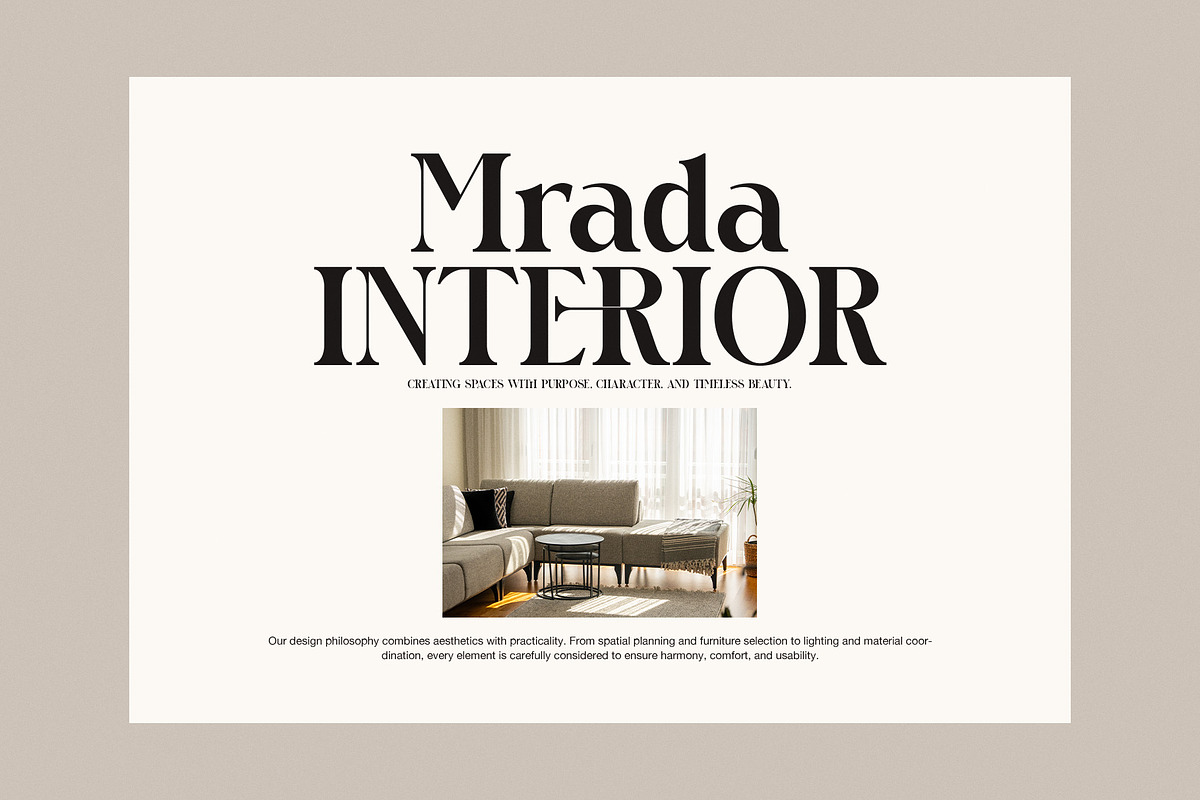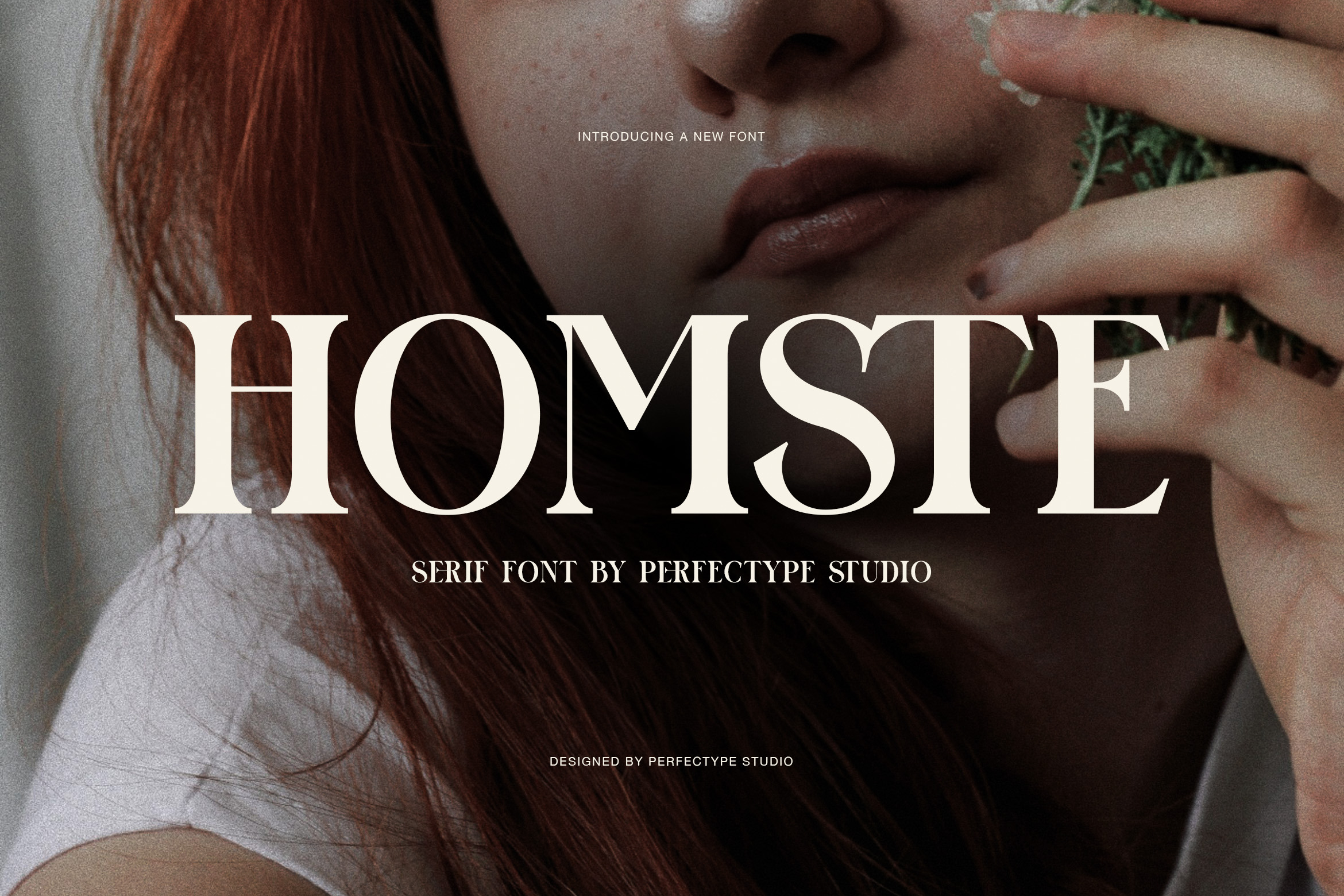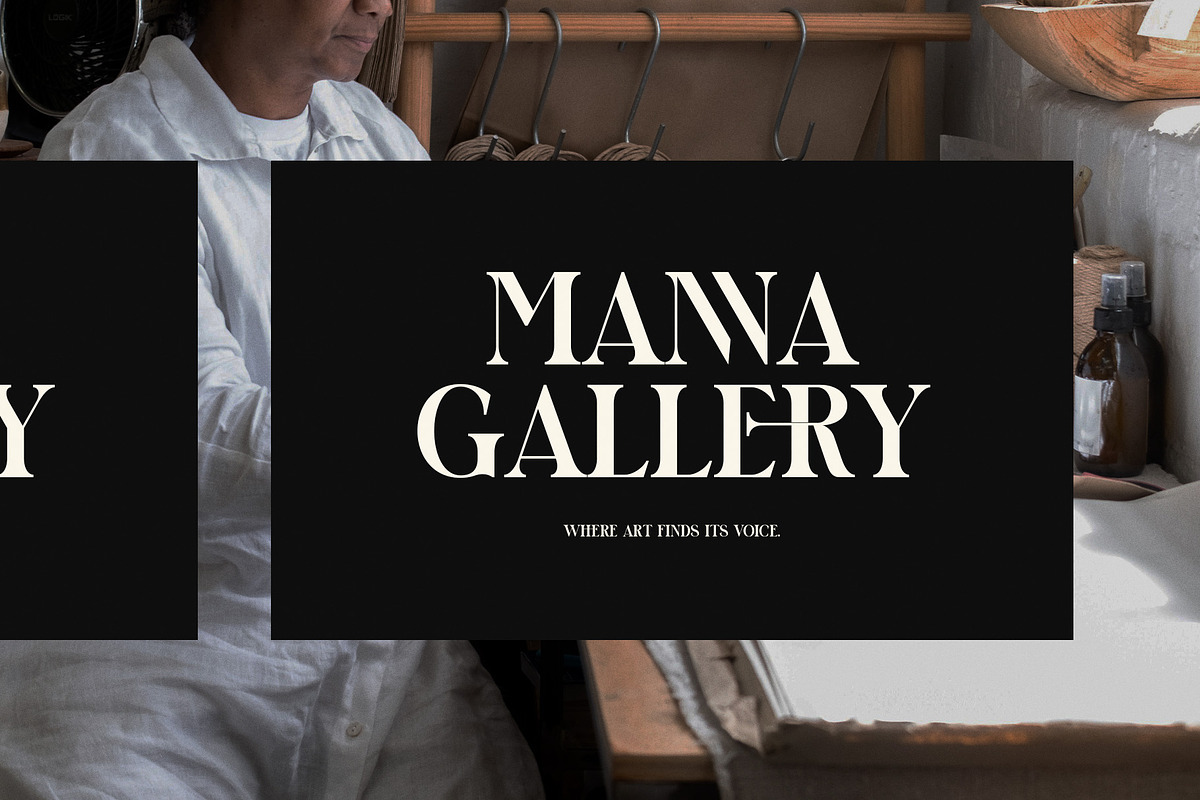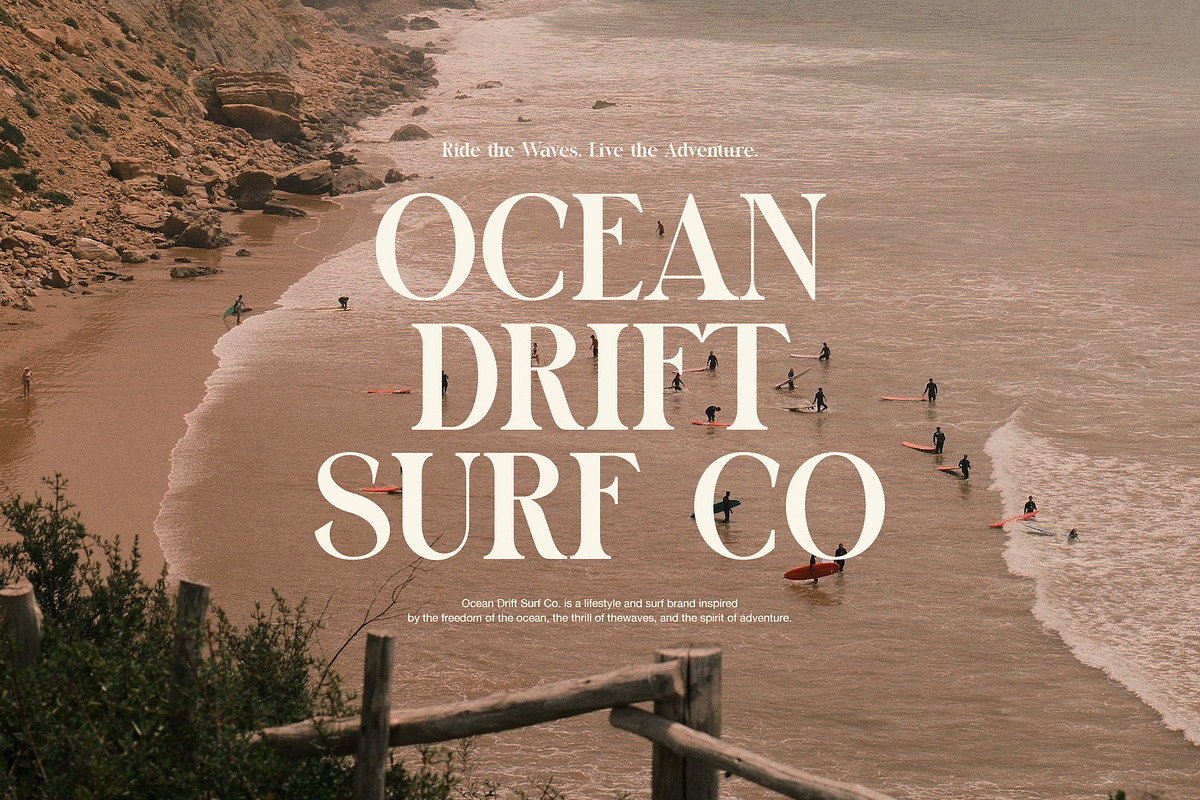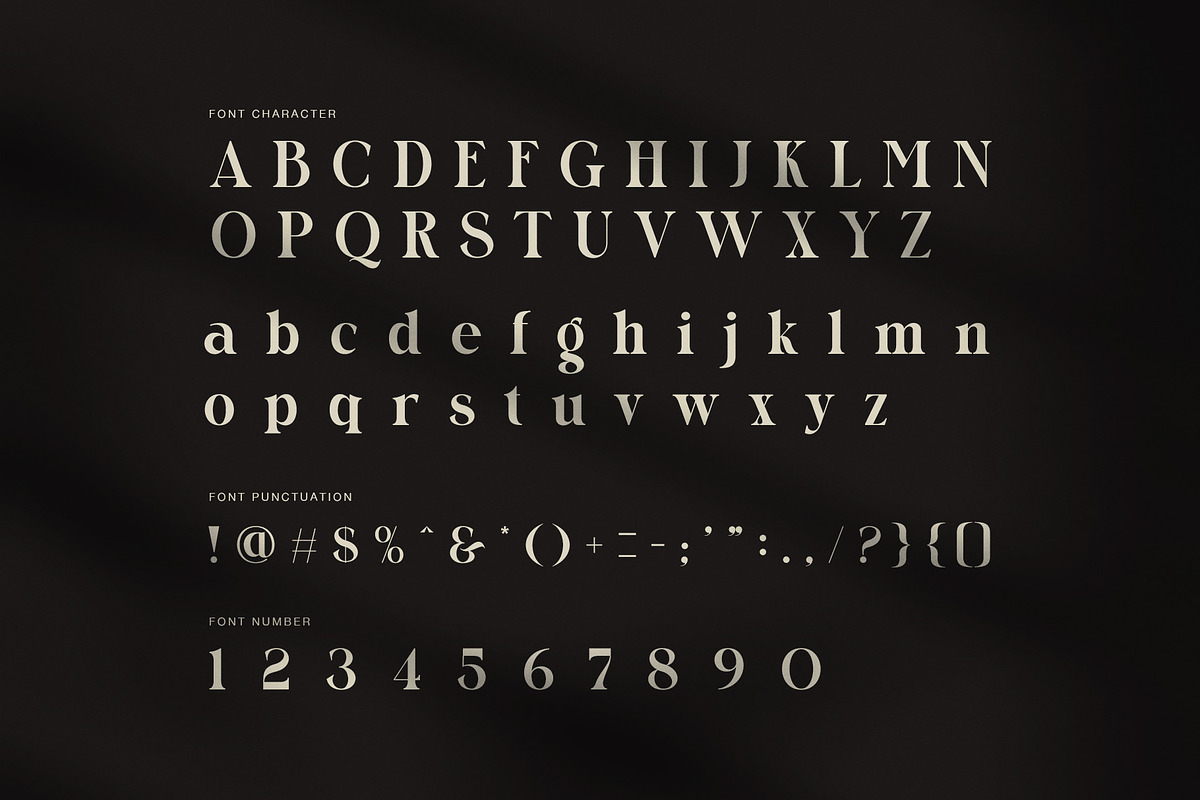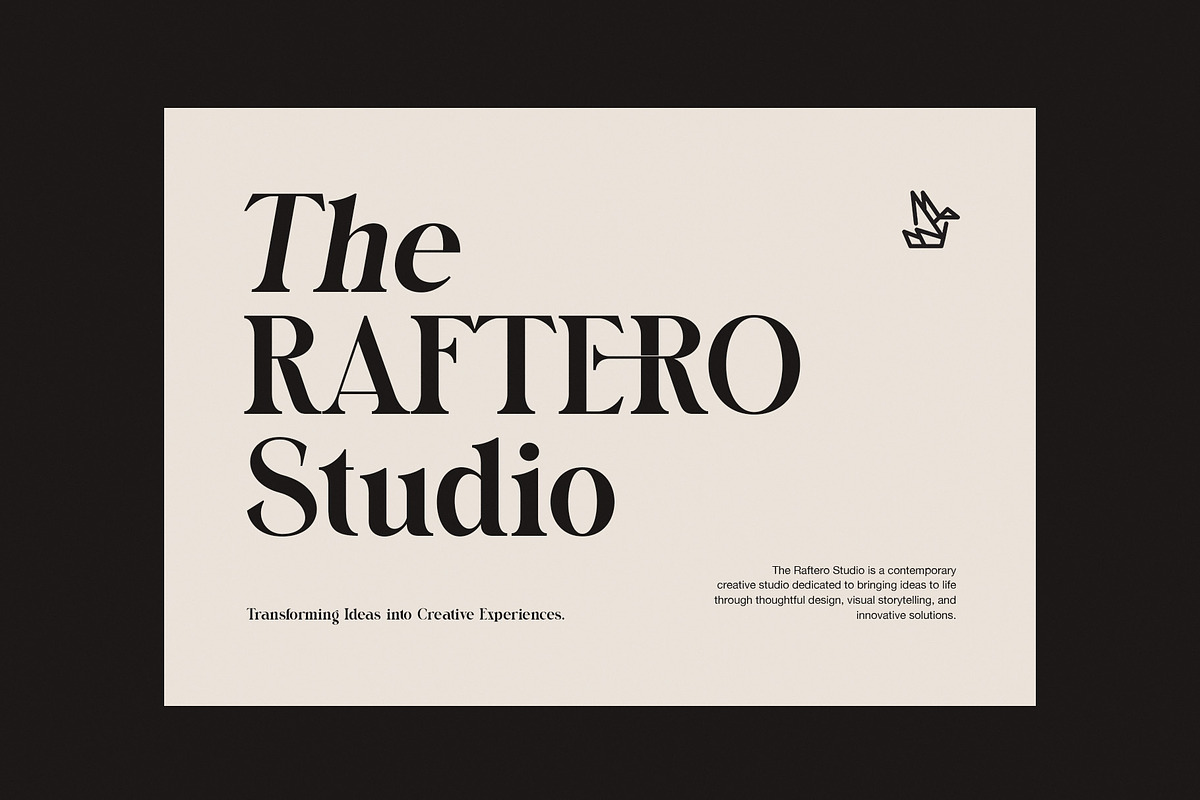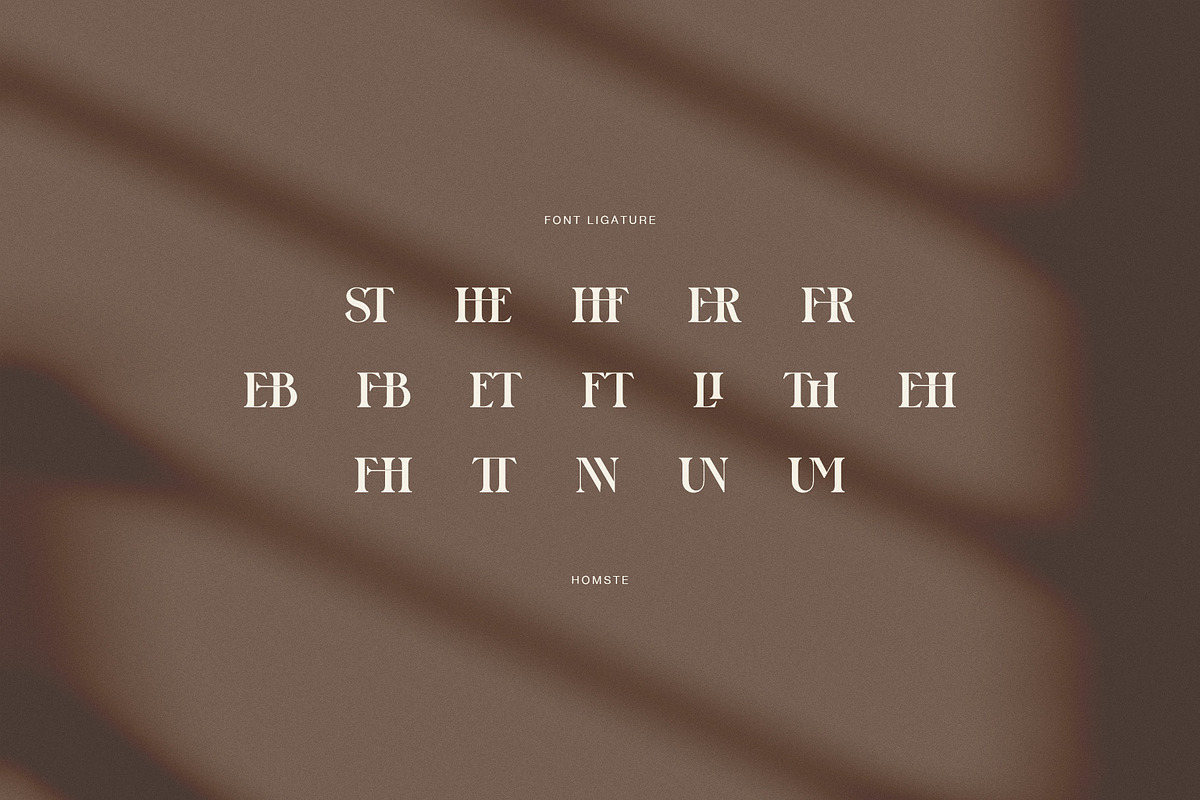
Homste Editorial Serif Font
Homste is a bold editorial serif font created for designers who want strong typography with a refined and modern character. Its confident letterforms combine thick strokes, sharp details, and elegant curves. As a result, Homste creates headlines that feel expressive while remaining polished and easy to recognize.
Strong Typography for Modern Design
The bold structure gives Homste a clear visual presence, especially when used at large sizes. Meanwhile, its refined serif details add a classic touch without making the design feel dated. Therefore, this typeface works beautifully across fashion, lifestyle, branding, and editorial projects.
Homste includes uppercase and lowercase characters, numbers, and punctuation. In addition, the font features a selection of carefully designed ligatures. These alternate combinations add personality to words and can help create a more distinctive typographic style.
Designed for Editorial and Branding
Homste is particularly effective when typography needs to become part of the visual identity. Its strong shapes can anchor a layout, while the softer curves keep the overall appearance balanced. Moreover, the lowercase characters provide more flexibility for titles, subtitles, and supporting text.
Use Homste for:
Fashion magazine headlines
Luxury and lifestyle branding
Creative studio identities
Photography portfolios
Beauty and editorial campaigns
Posters and promotional graphics
Product packaging
Logo and wordmark concepts
Social media artwork
Website hero sections
Lookbooks and fashion catalogs
Expressive Ligatures
The included ligatures provide another layer of creative control. They connect selected letter pairs with custom shapes, allowing designers to build headlines that feel more crafted and distinctive. Consequently, Homste can move from a clean editorial look to a more expressive display style with only a few typographic adjustments.
A Versatile Contemporary Serif
Although Homste has a bold appearance, its balanced proportions make it surprisingly adaptable. It works especially well with minimalist layouts, monochrome photography, warm neutral palettes, fashion imagery, and modern brand systems. Furthermore, the combination of strong serifs and curved details gives it a memorable personality.
Homste is a practical choice for designers looking for a bold editorial serif font that can handle fashion, branding, magazines, posters, and creative campaigns. Ultimately, it brings together strong display typography, elegant curves, and useful ligatures in one distinctive typeface.